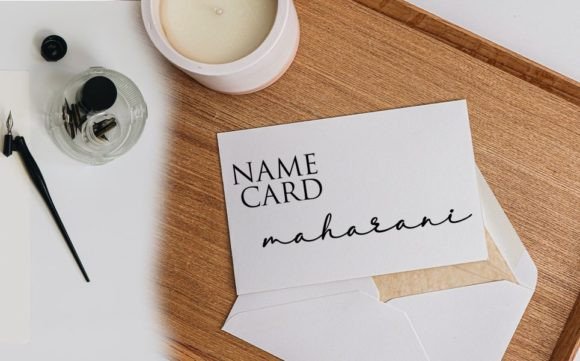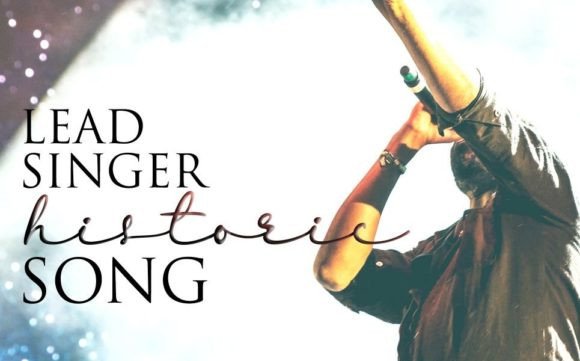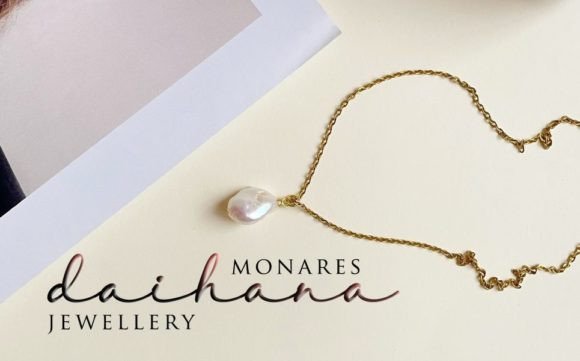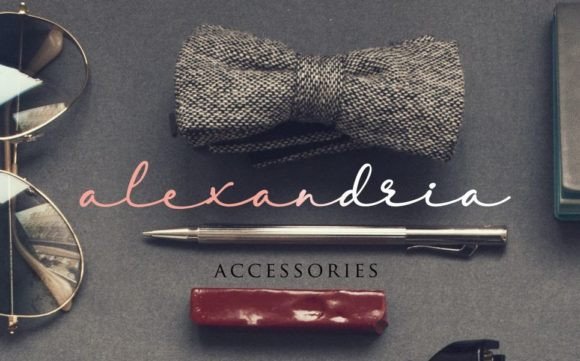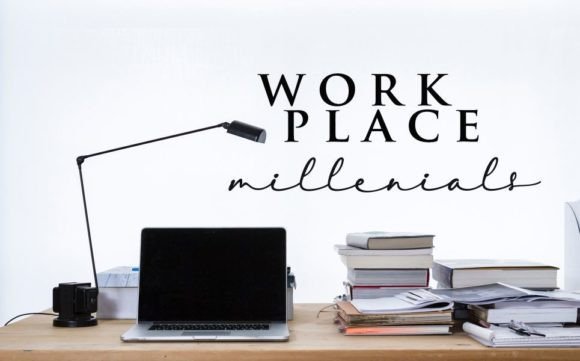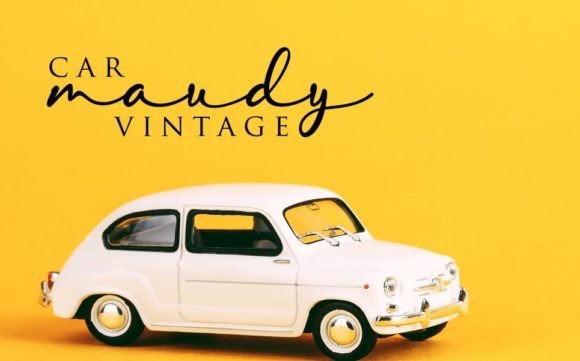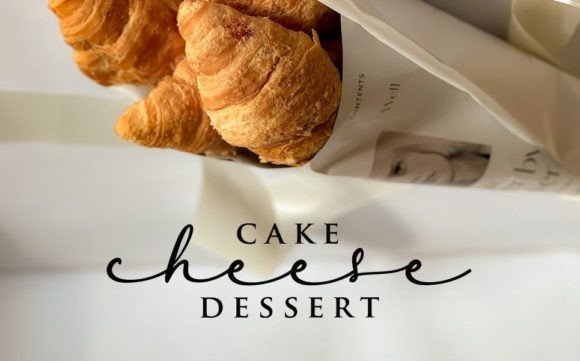
Sambalado Font
About Sambalado Font
Sambalado Font is a modern handwritten script that effortlessly blends romantic elegance with a touch of nature. With every stroke, it delivers charm, warmth, and authenticity. Designed for those who seek a handwritten style with personality, this font is ideal for everything from fashion branding to heartfelt wedding cards.
Thanks to its stylish curves and flowing swashes, Sambalado adds a natural feel to any project. Each lowercase character includes both initial and final swash options, helping you achieve a more realistic and expressive handwritten look.
Perfect for Creative and Romantic Projects
Whether you’re working on a fashion label, designing a wedding invitation, or creating a photography watermark, Sambalado Font adapts beautifully. It’s also a great fit for:
• Elegant product packaging, such as perfume or alcohol labels
• Stylish greeting cards and personalized stationery
• Romantic quotes, social media graphics, and more
Because it was created with care and artistic flow, this font brings out the emotional side of your message while keeping the design polished and professional.
Easy to Use and Fully Feature-Rich
Moreover, the font’s soft curves and subtle strokes ensure that your text stands out in print and digital formats alike.